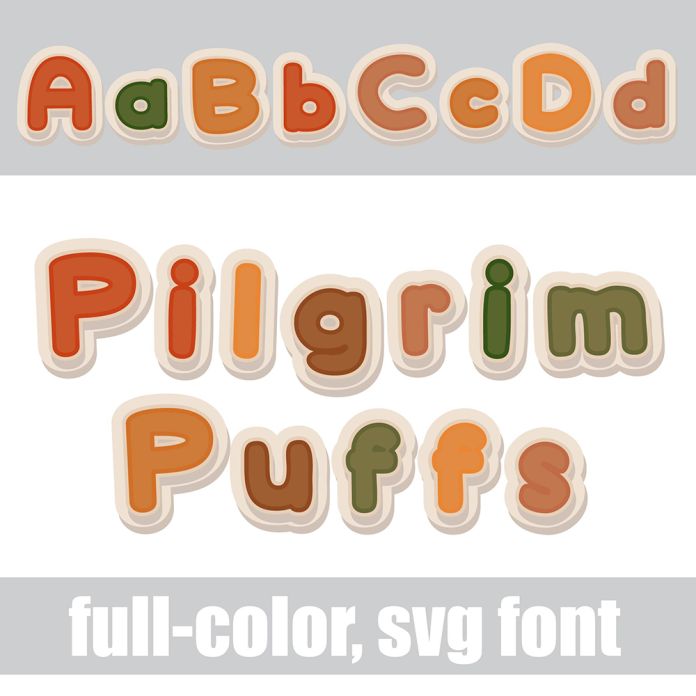
This full-color font is a puffy, layers, whimsical sans serif lettering in a Thanksgiving color palette. There is an alt case with an additional color of each letter. This font works best for titles, displays, posters and more. Please note color fonts will show as black in non compatible programs. This font type is compatible with Silhouette Studio.